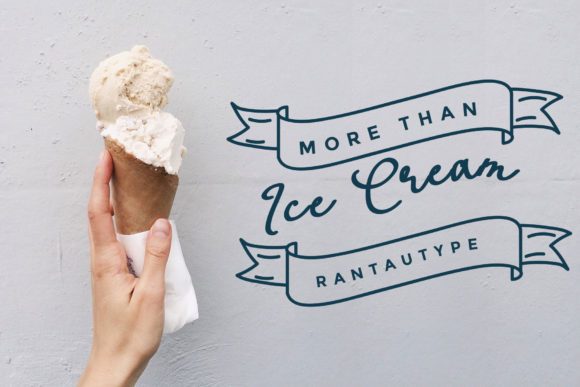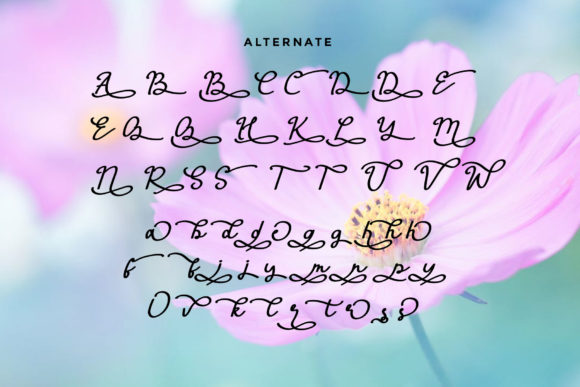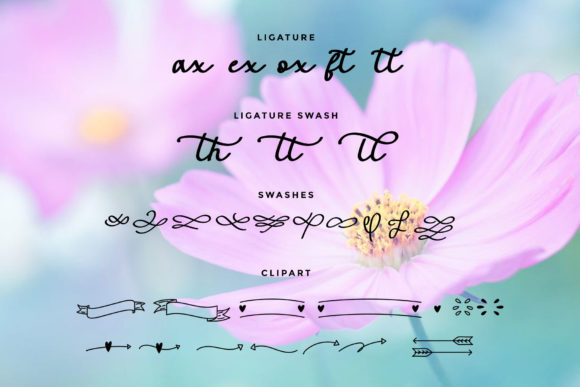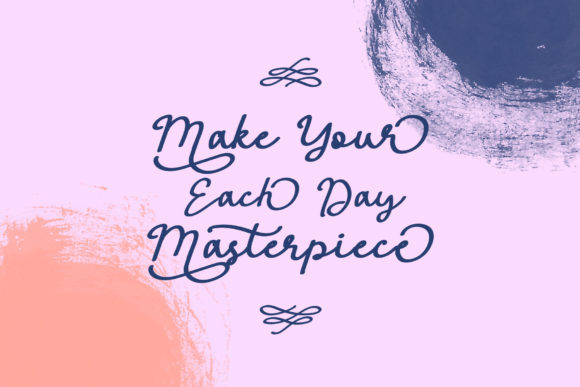
About Antha Font
Antha is a delicate and stylish handwritten font. It is PUA encoded which means you can access all of the glyphs and swashes with ease! This font will add an eye-catching appeal to your logo designs, brand imagery, handwritten quotes, product packaging, merchandise & social media posts.